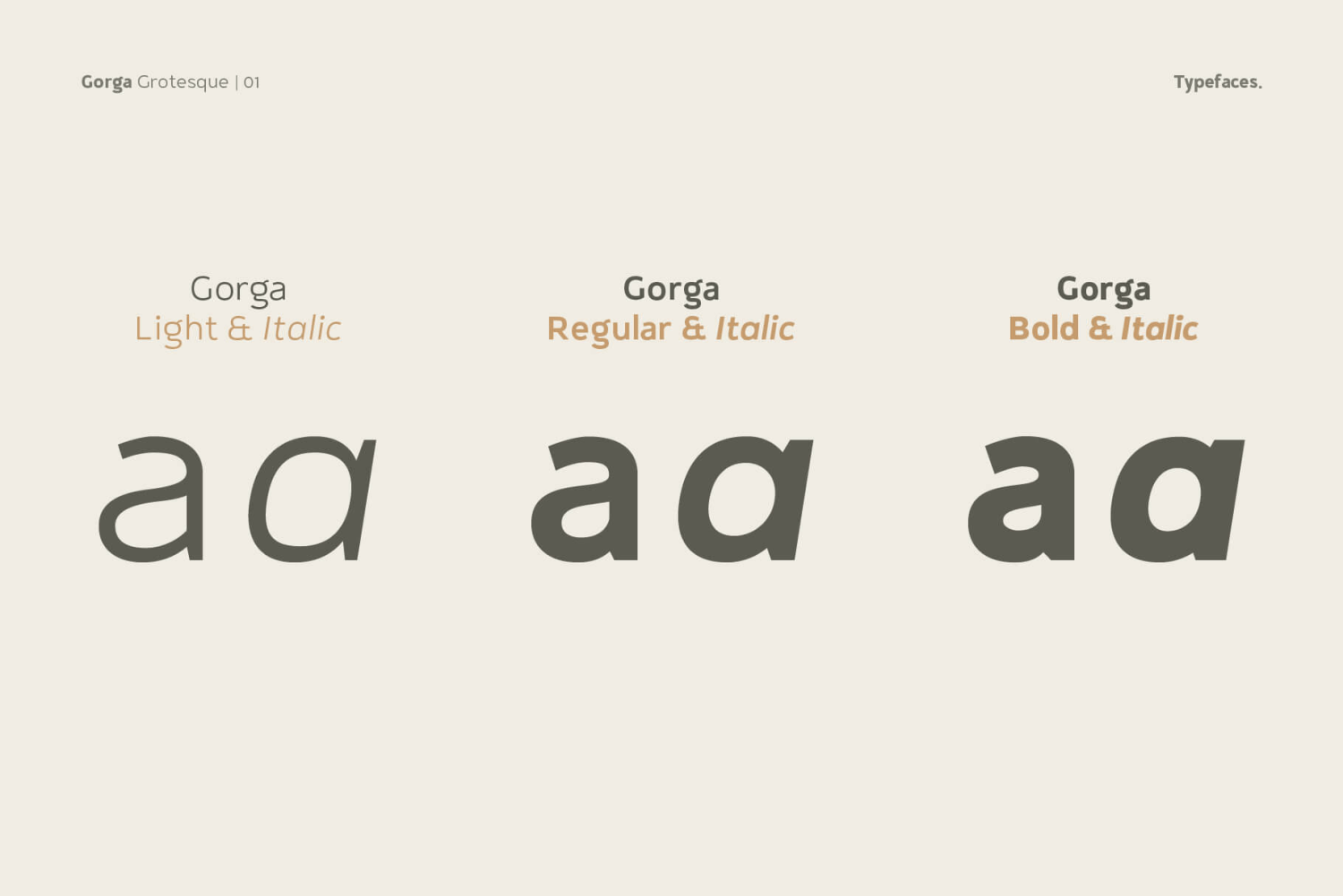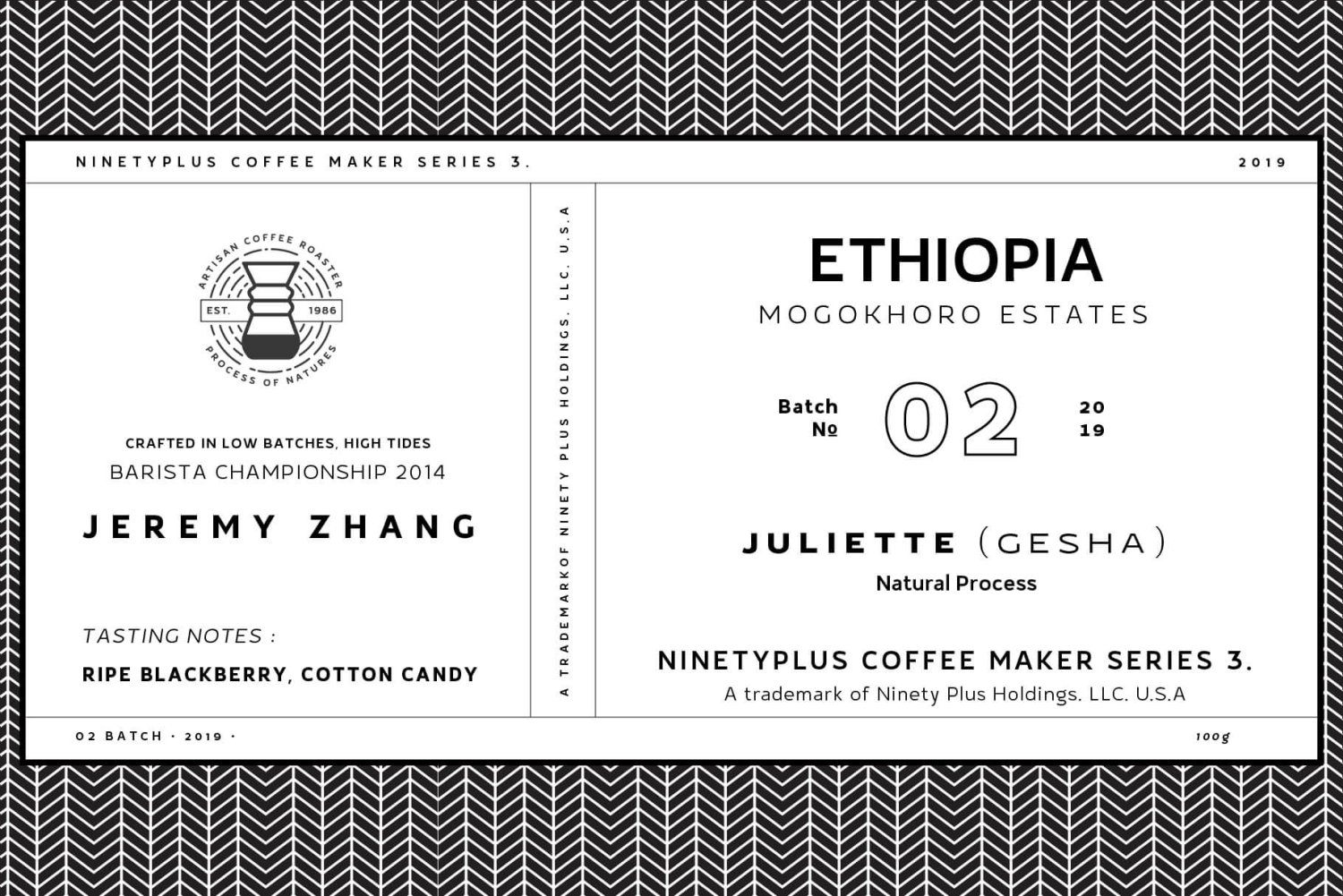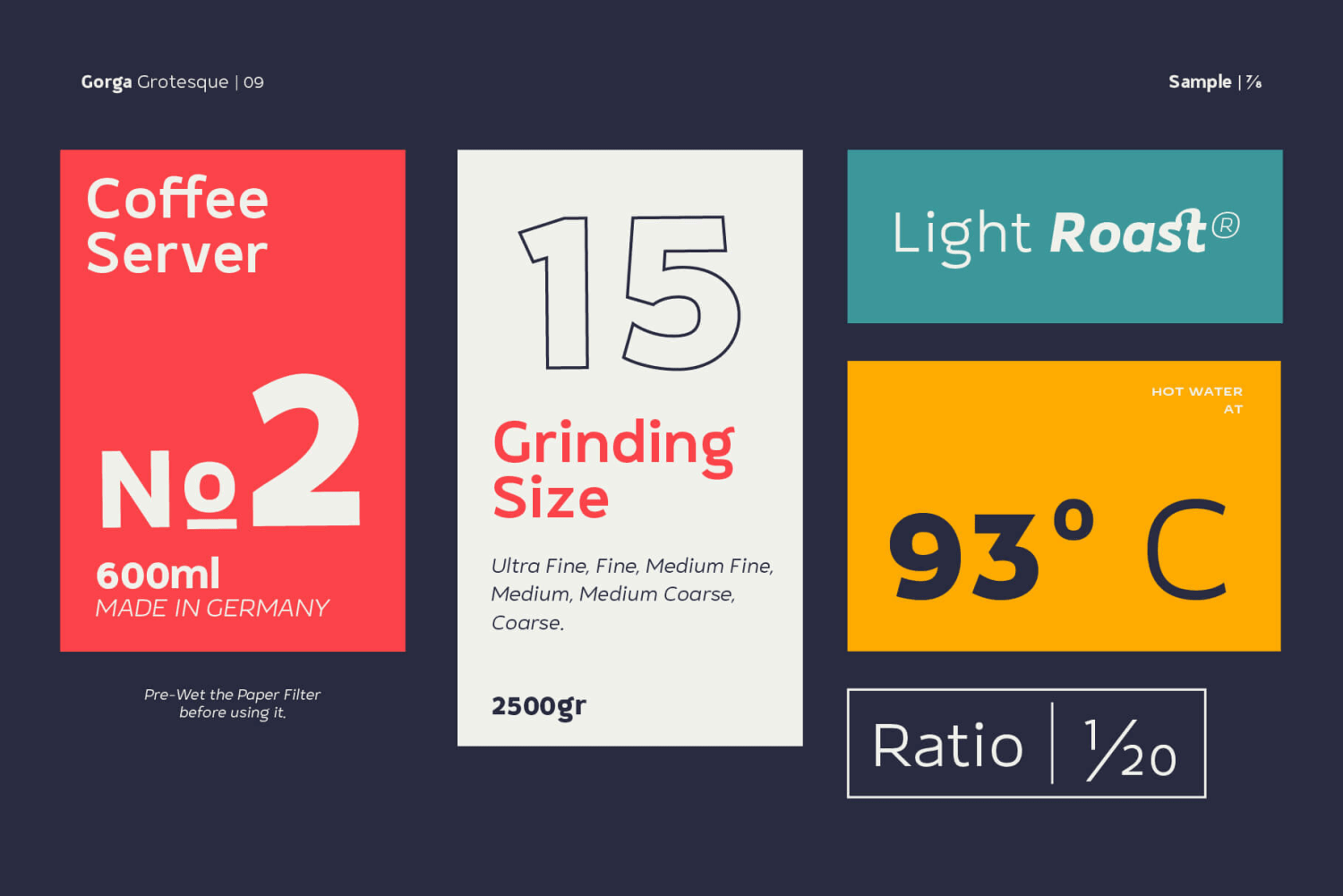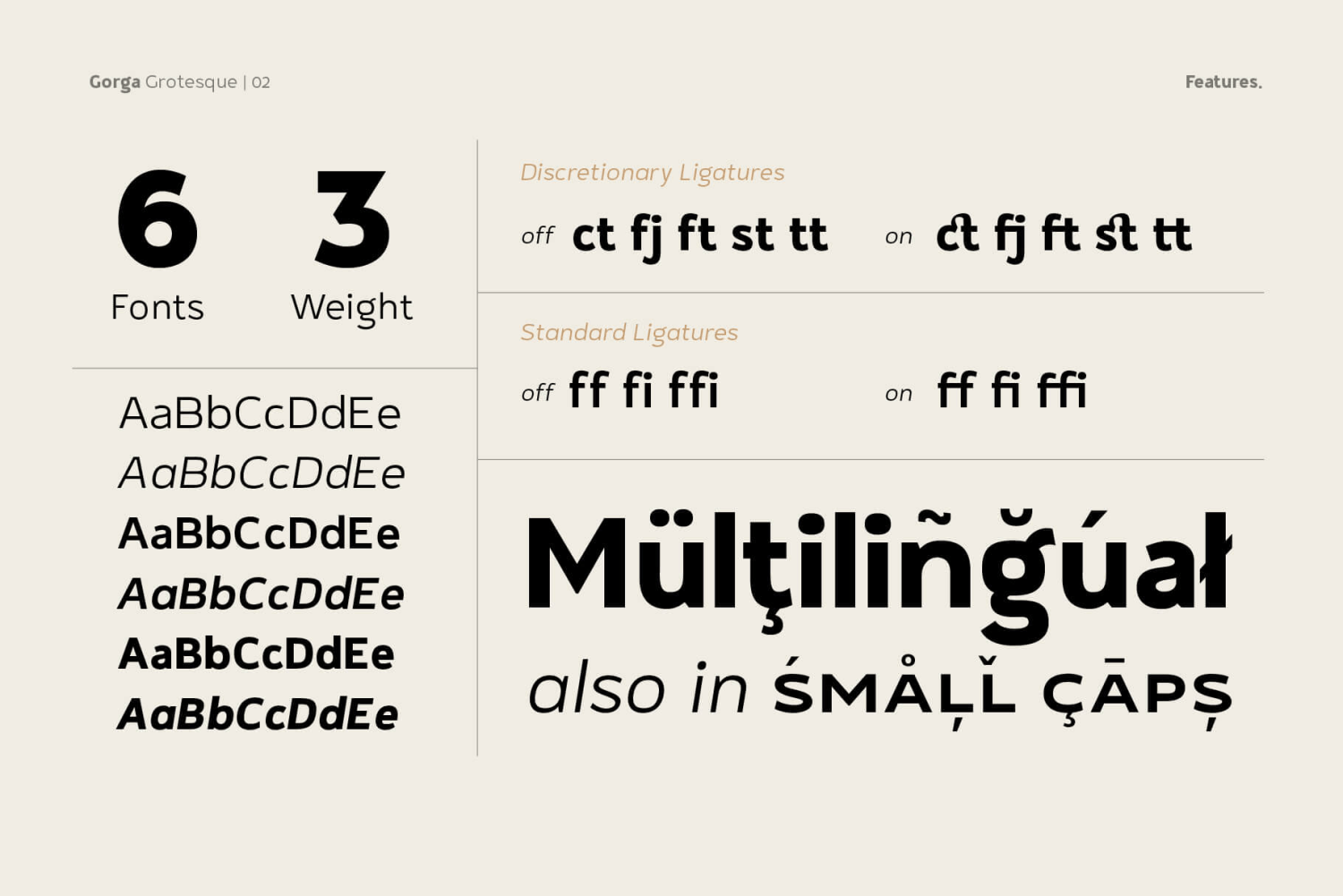
About Gorga Grotesque
Gorga is a modern sans serif with Grotesque touch. With 6 Fonts with 3 different weight and matching italic version of this fonts. Inspired by a Geometrical fonts and also Humanist Sans serif. These fonts are mostly trial and error when I'm working…